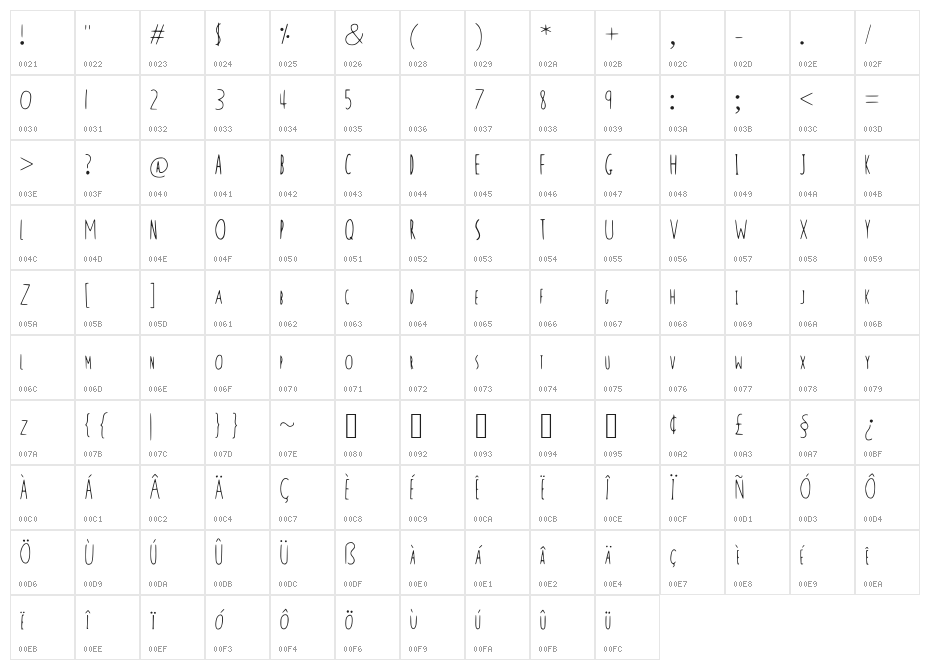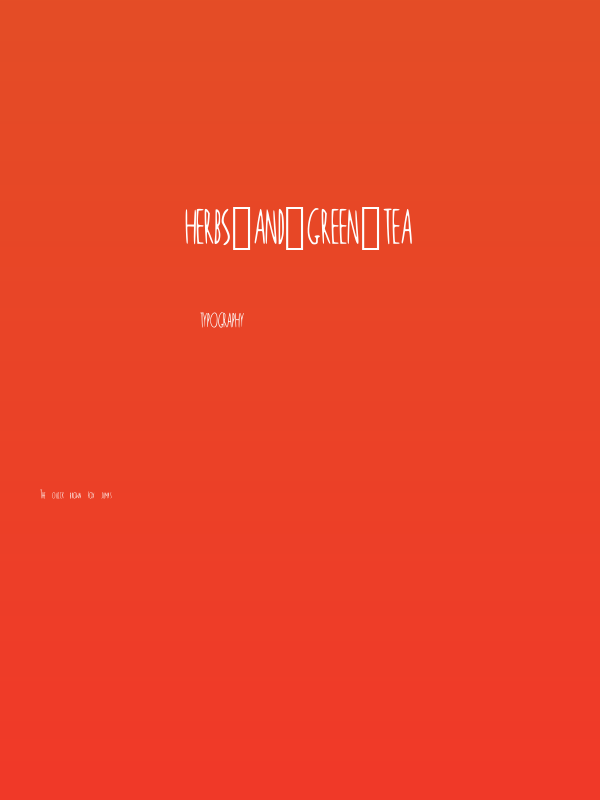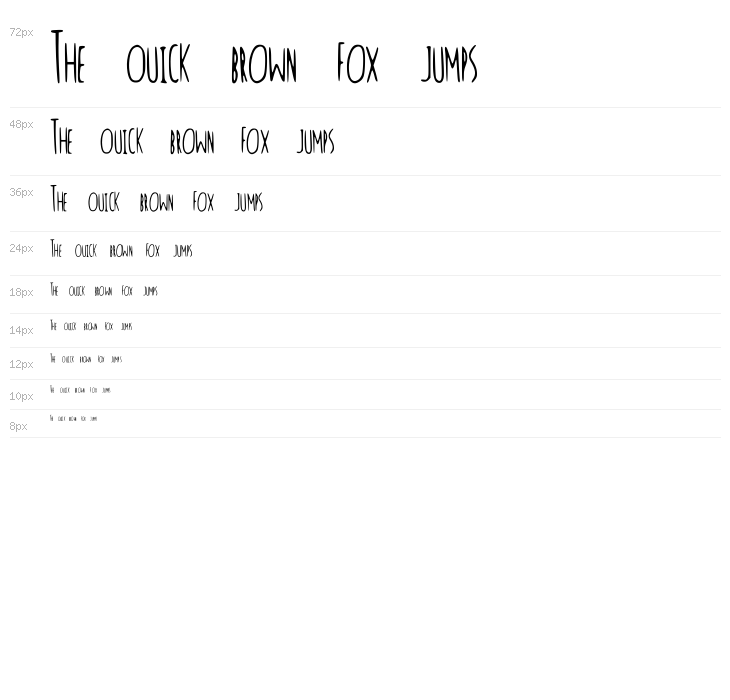
Herbs_and_Green_Tea Font
Herbs_and_Green_Tea Description
This font features a tall and narrow design with a playful, handwritten style. The characters are elongated, giving a whimsical and artistic feel. The uppercase and lowercase letters maintain a consistent height, while the numbers and special characters complement the overall aesthetic. The strokes are thin, with a slight variation in thickness that adds a touch of elegance and sophistication. This font is ideal for projects that require a creative and informal touch, such as invitations, greeting cards, or artistic posters. Its unique style makes it stand out, adding personality and charm to any design.
| Use Case | Headlines, Artistic projects, Invitations |
| Proposed Projects | Ideal for invitations, greeting cards, artistic posters, and creative branding. |